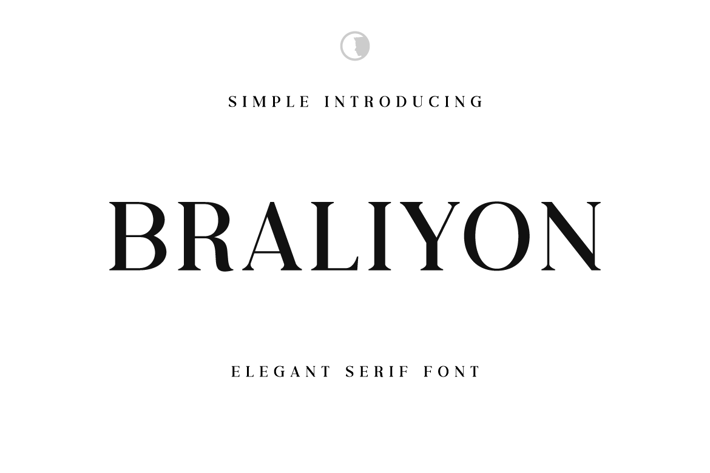
Braliyon an Elegant Serif Font
Braliyon is an Elegant Serif Font inspired by Classic Art Deco. It perfectly represents vintage in a modern and minimalist way.